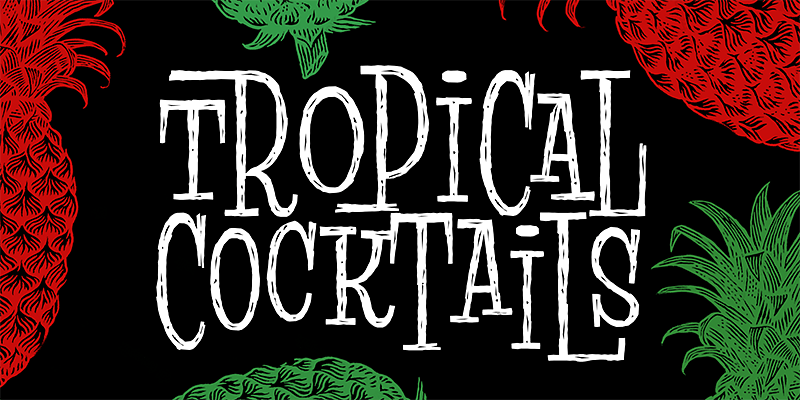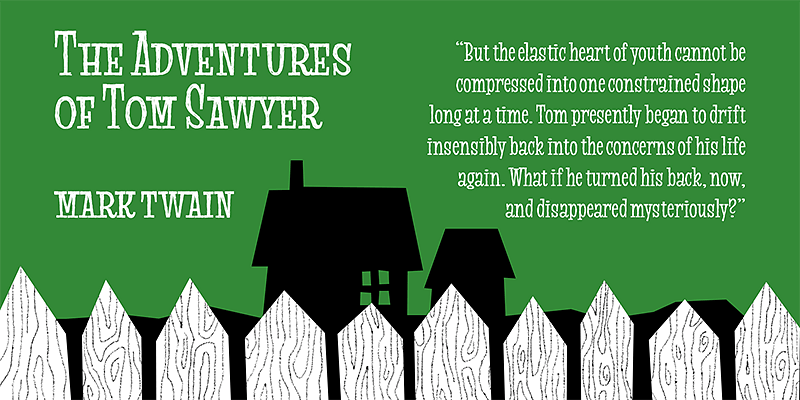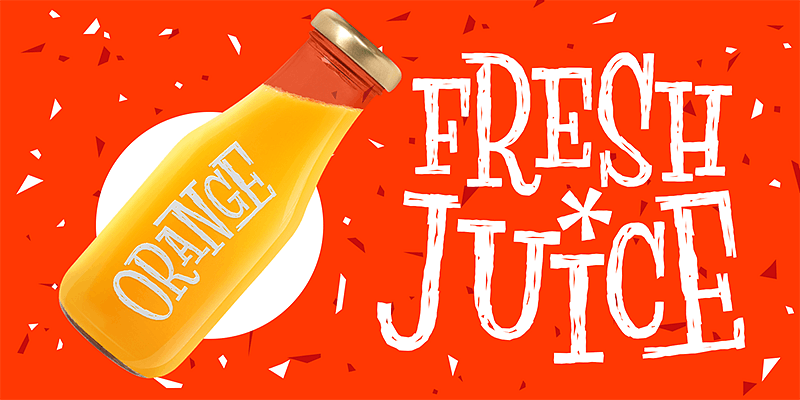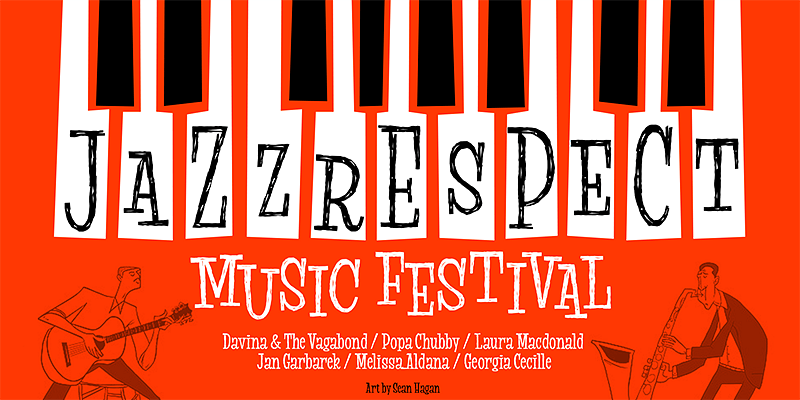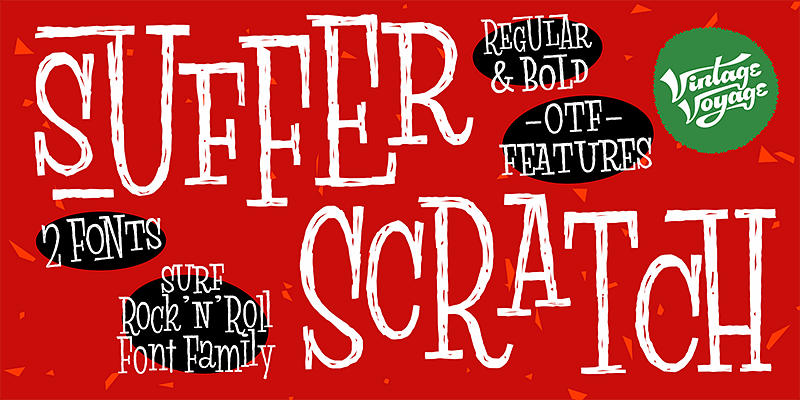
Do you hear that sound of Dick Dale’s guitar? Here it is! Vintage Voyage Design’s Suffer Scratch with retro rock vibes! Alternates will give you a handwritten mood and an absolutely unique typographic style. Straight outta vintage vinyl covers and surf gig posters into your font collection! We’ve all missed the sun, so grab this family and get some summer vibes. No matter what your next design project — a tiki t-shirt collection, summer rock festival, greeting cards, or a header for a zine.